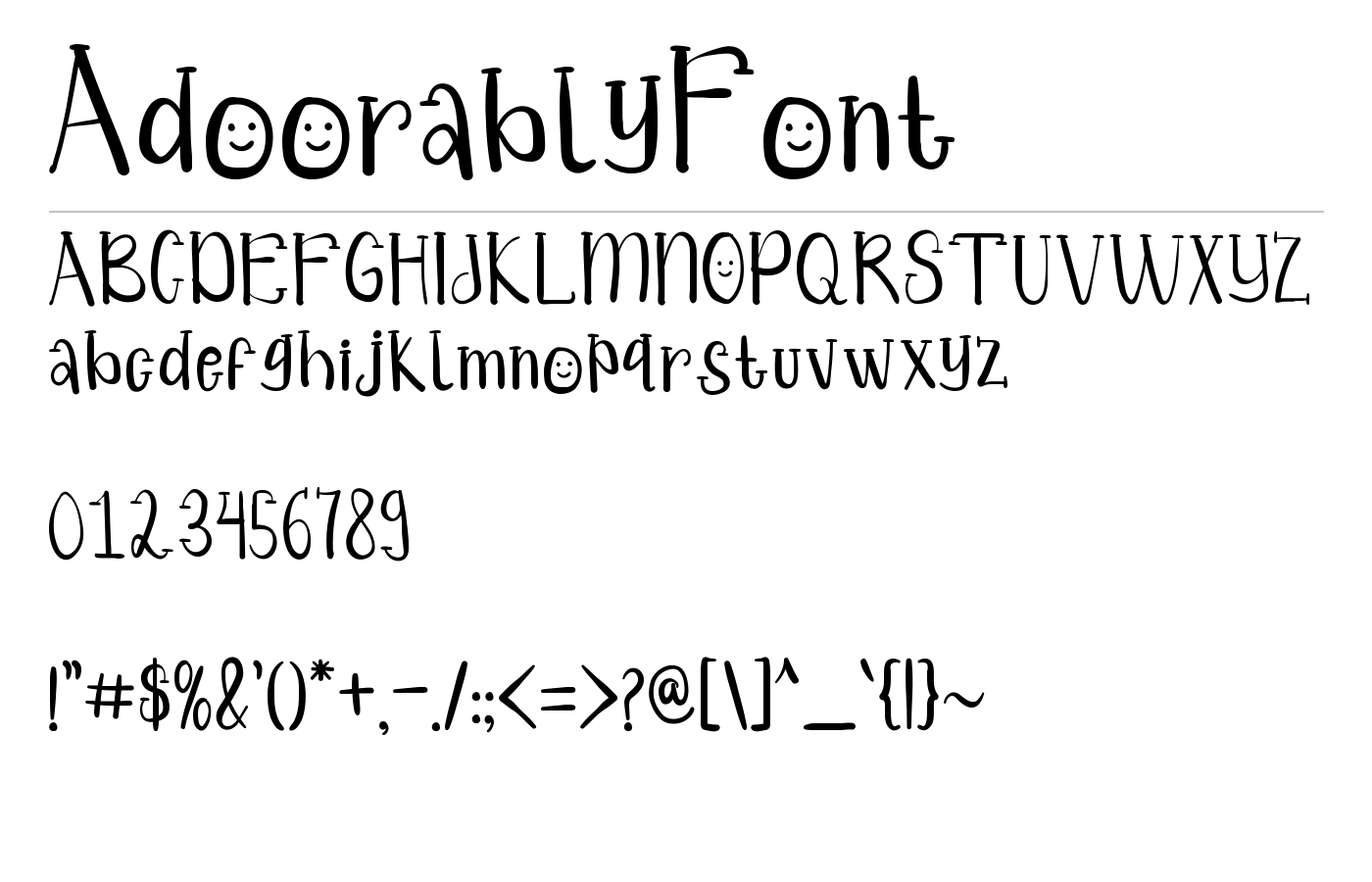
AdoorablyFont is a playful, handwritten-style sans serif with a quirky and whimsical character. Its tall, narrow letterforms feature slight irregularities and charming smiley faces in select letters, giving it a friendly and approachable feel perfect for casual, child-focused, or creative projects. This font works well for invitations, posters, greeting cards, and branding that seeks to convey warmth and fun.
AdoorablyFont